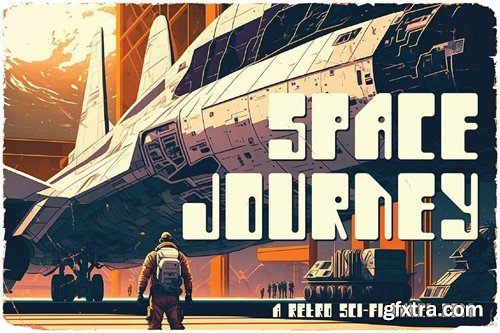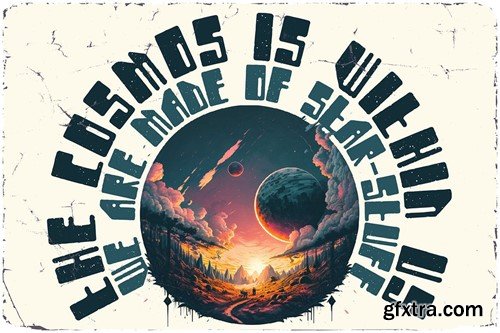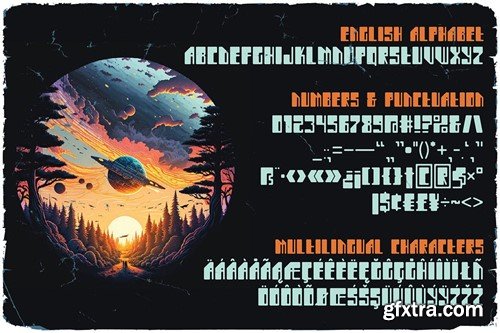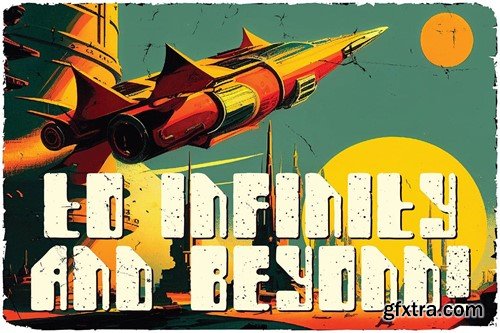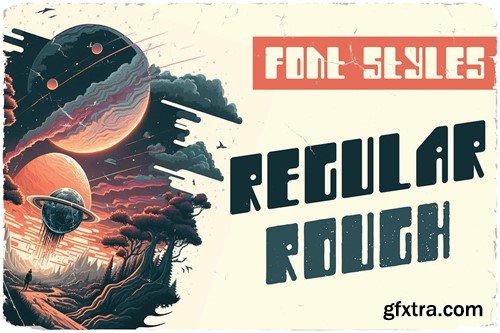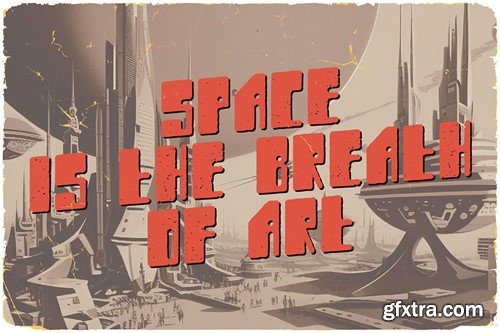
Space Journey Display Font
Unique, playful, bold, rounded, scifi & retro sans serif font. Comes with multilingual support & 2 font versions - great for your new logo or branding project. For any help regarding this file, please feel free to contact me through my profile page!